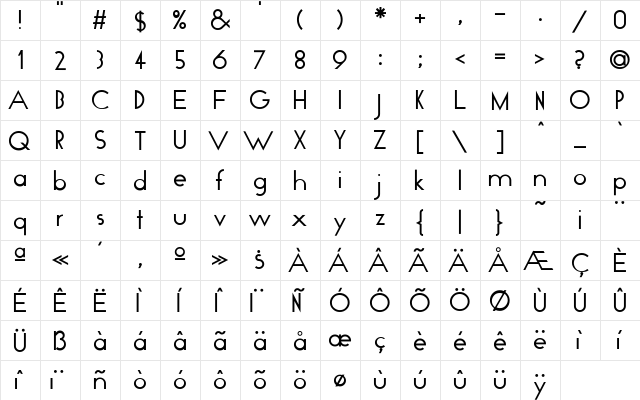
Pommarantz Plain Regular
Design Context for Pommarantz Plain Typeface
Pommarantz Plain takes a measured approach to typography — its balanced proportions and neutral character make it a reliable workhorse for both digital and print work.